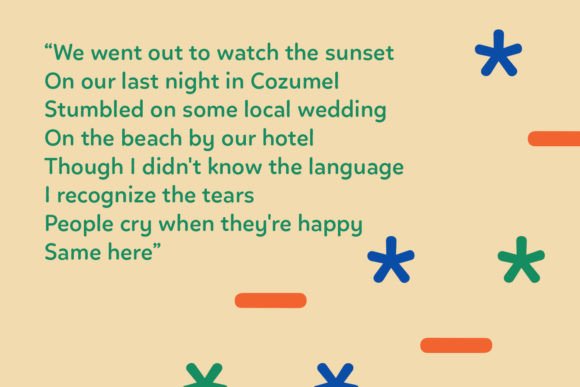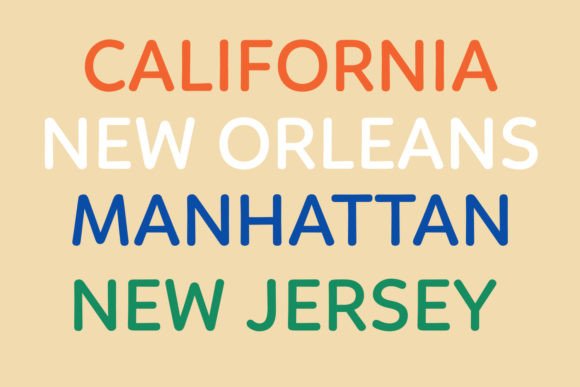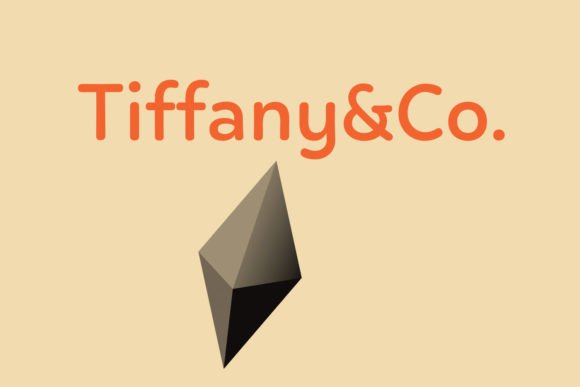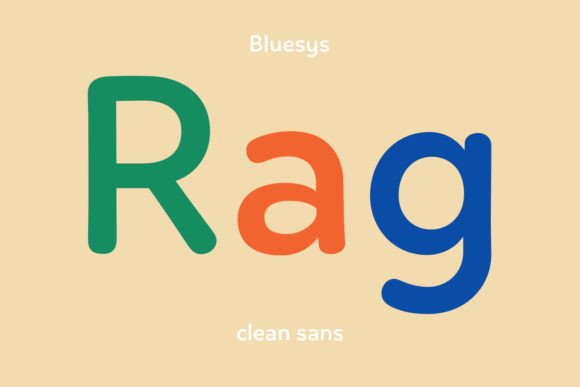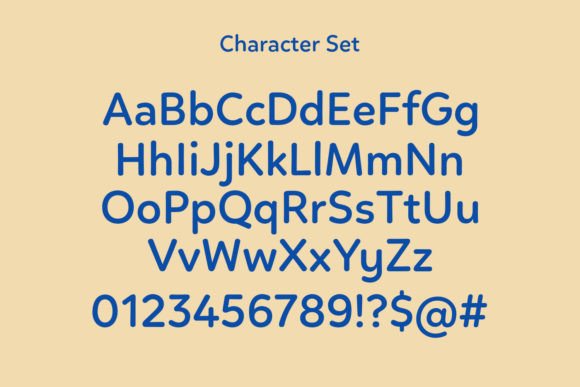
Introducing Bluesys Font: A Modern Light Clean Sans Serif for Creative Projects
In the world of typography, a font can make all the difference in the success of a design project. Whether you’re a graphic designer, a crafty DIY enthusiast, or a digital artist, finding the right font can elevate your work from ordinary to extraordinary. If you’re on the hunt for a modern, light, and clean sans serif font that adds a touch of fun and personality to your text, look no further than Bluesys Font.
What is Bluesys Font?
Bluesys is a contemporary sans serif font designed to bring a fresh and airy feel to your designs. Characterized by its light stroke, Bluesys exudes a sense of modernity and cleanliness, making it perfect for a wide range of applications. But what sets Bluesys apart from other sans serif fonts is its playful character. With a bit of ligatures and alternates, Bluesys adds a touch of whimsy and personality to your text, making it ideal for designs that require a bit of flair.
Key Features of Bluesys Font
- Modern and Clean Design: Bluesys boasts a sleek and contemporary design that’s perfect for modern brands and creative projects.
- Light Stroke: The font’s light stroke gives it an airy and elegant feel, making it suitable for a wide range of applications.
- Fun Character: With ligatures and alternates, Bluesys adds a touch of personality to your text, making it perfect for designs that require a bit of whimsy.
- Versatile: Bluesys is suitable for both short and long text, making it a great choice for logo design, social media, movie titles, book titles, and more.
Use Cases for Bluesys Font
Bluesys is an incredibly versatile font that can be used in a variety of creative projects. Here are some ideas to get you started:
- Logo Design: Bluesys is perfect for creating modern and sleek logos that require a bit of personality.
- Social Media: Use Bluesys to create eye-catching social media graphics, posts, and stories that stand out from the crowd.
- Movie Titles: Bluesys is a great choice for movie titles, adding a touch of modernity and glamour to your film’s branding.
- Book Titles: Use Bluesys to create stunning book titles that capture the essence of your story.
- Secondary Text Font: Bluesys pairs well with script or serif fonts, making it an excellent choice for secondary text in your designs.
Tips for Using Bluesys Font
To get the most out of Bluesys, here are some tips to keep in mind:
- Experiment with Ligatures and Alternates: Don’t be afraid to experiment with Bluesys’ ligatures and alternates to add a touch of personality to your text.
- Pair with Other Fonts: Bluesys pairs well with a variety of fonts, so don’t be afraid to experiment with different combinations to find the perfect match for your design.
- Use for Headings and Titles: Bluesys is perfect for headings and titles, but don’t be afraid to use it for body text as well.
Bluesys Font is a modern light clean sans serif font that’s perfect for creative projects that require a bit of personality. With its light stroke, fun character, and versatile design, Bluesys is suitable for a wide range of applications, from logo design to social media graphics. Whether you’re a designer, crafty DIY enthusiast, or digital artist, Bluesys is a great addition to your font library. So why wait? Get creative with Bluesys Font today and make stunning works that stand out from the crowd!